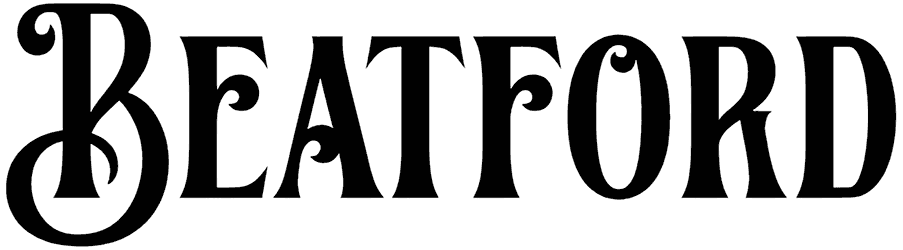
Today’s font is another elegant vintage font inspired by Victorian buildings. This Victorian font is called Pillar Typeface and it will make your texts more classy. You can use this for museum-related headlines, newspaper and architecture magazines, classic novels, and movie titles. This font is an all-caps font and it only includes major characters.
Pilar display typeface is inspired with victorian building.
these fonts are specifically designed for display type for titles, headlines, and poster.